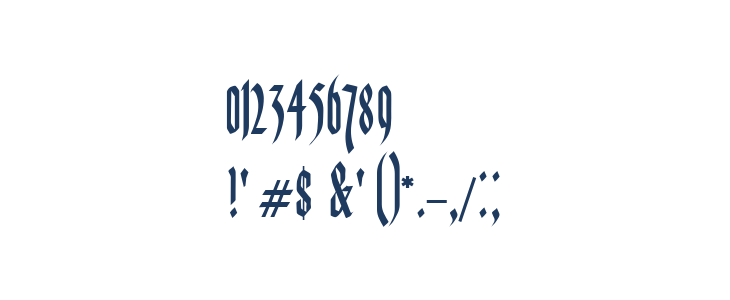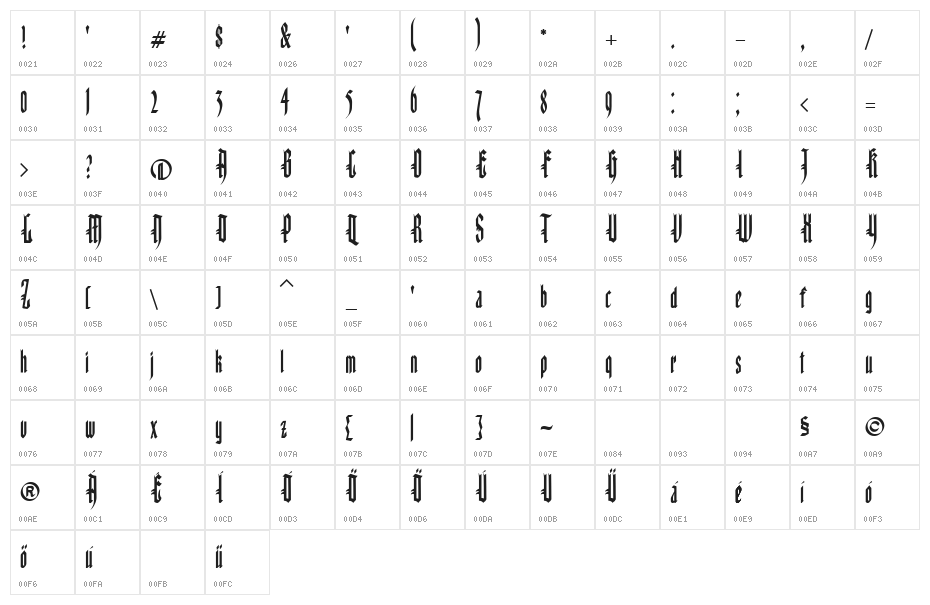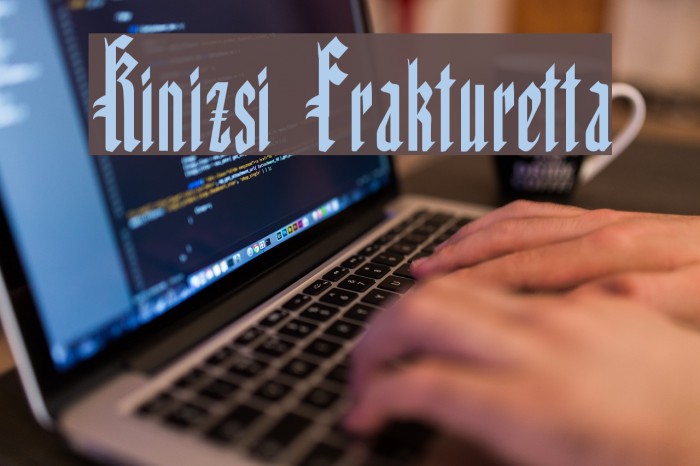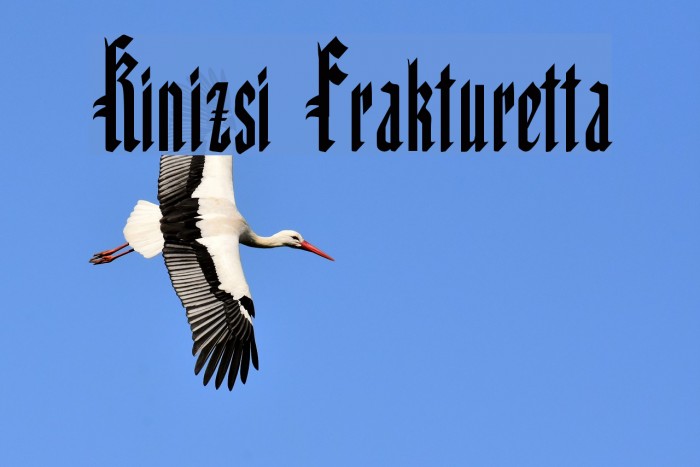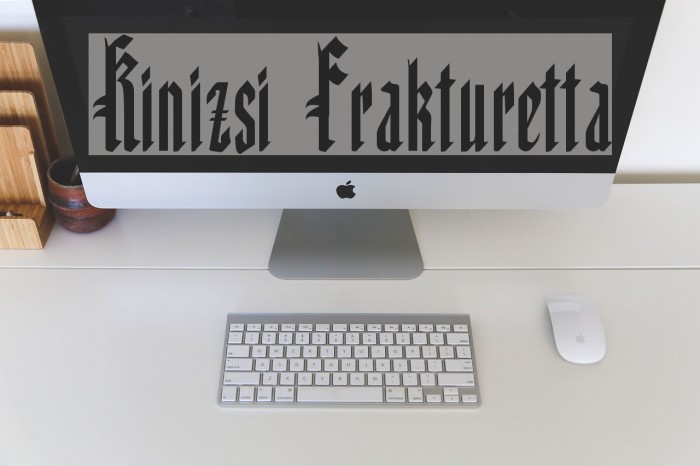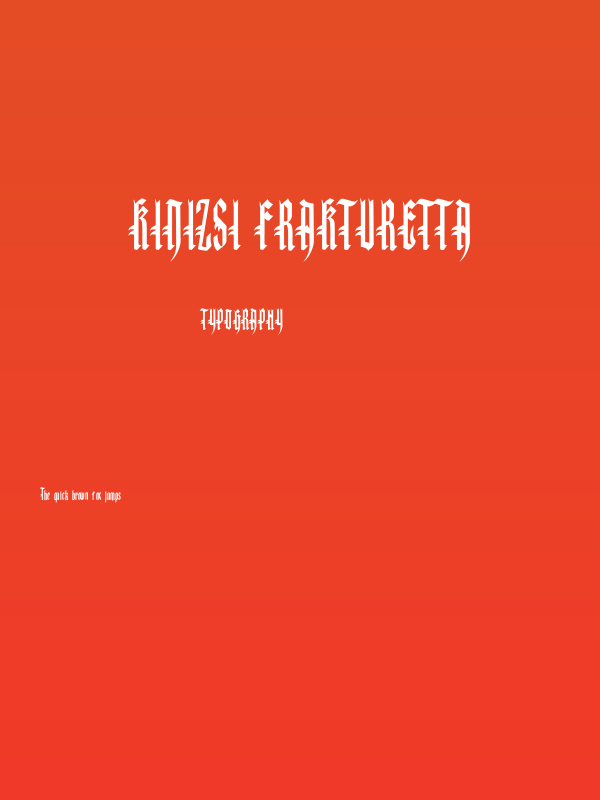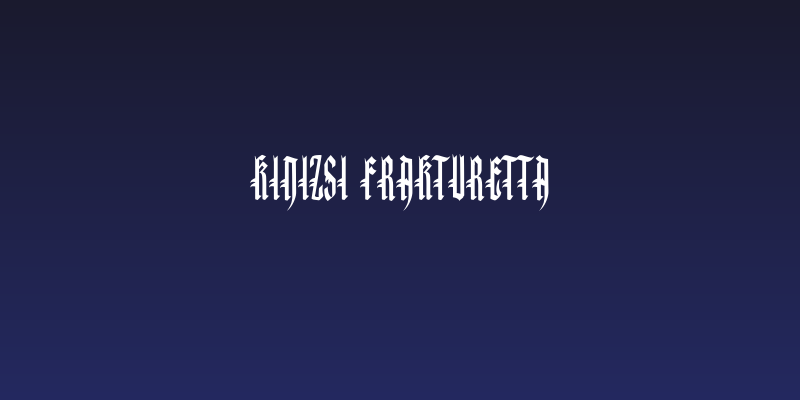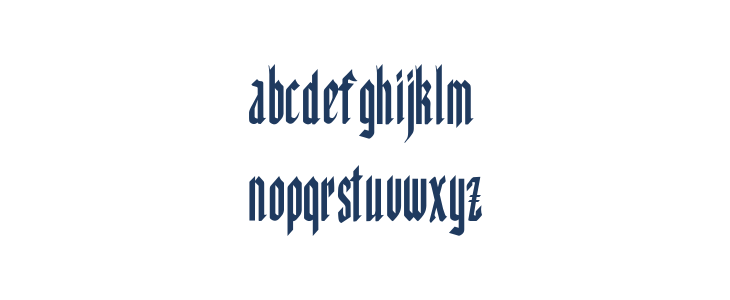
Kinizsi Frakturetta Font
Kinizsi Frakturetta Description
This font exhibits a traditional Blackletter style, characterized by its intricate and angular letterforms. The uppercase letters are tall and narrow, with sharp, pointed serifs and elaborate flourishes that give it a distinctly Gothic appearance. The lowercase letters maintain the same angularity, with a consistent stroke width that enhances readability while preserving the decorative essence. The numerals are similarly styled, with a unique flair that complements the overall aesthetic. Special characters are designed to match the ornate style, making this font suitable for projects that require a historical or medieval touch.
| Use Case | Headlines, Logos, Decorative text |
| Proposed Projects | Ideal for historical documents, medieval-themed designs, book covers, and event invitations. |